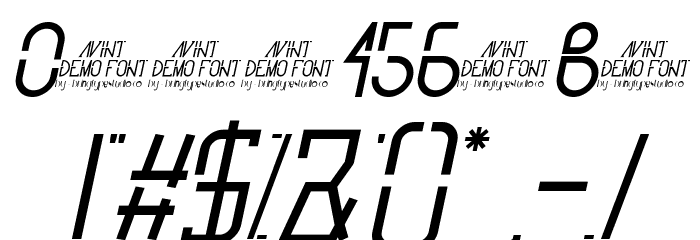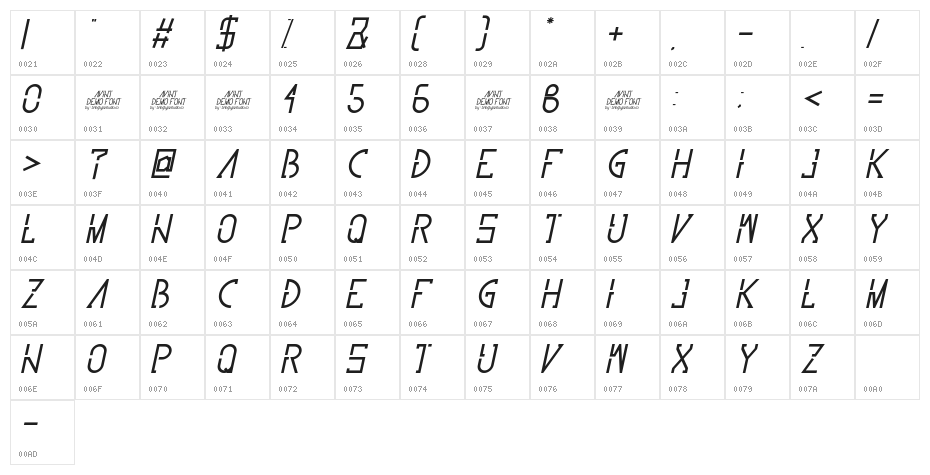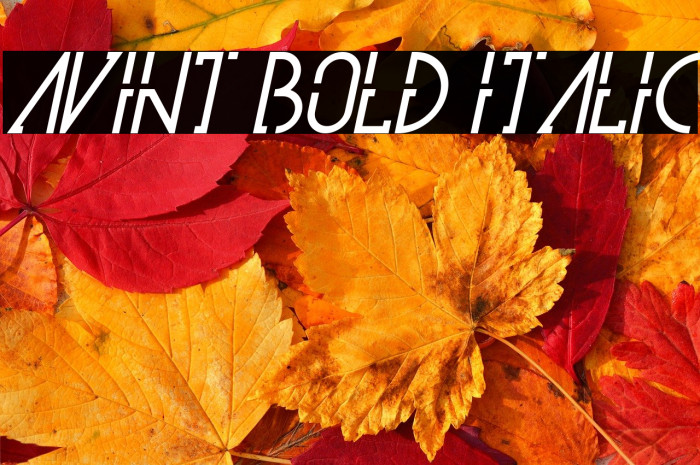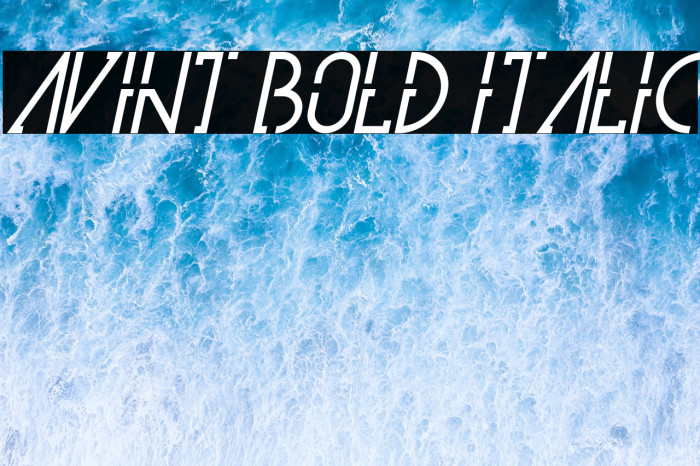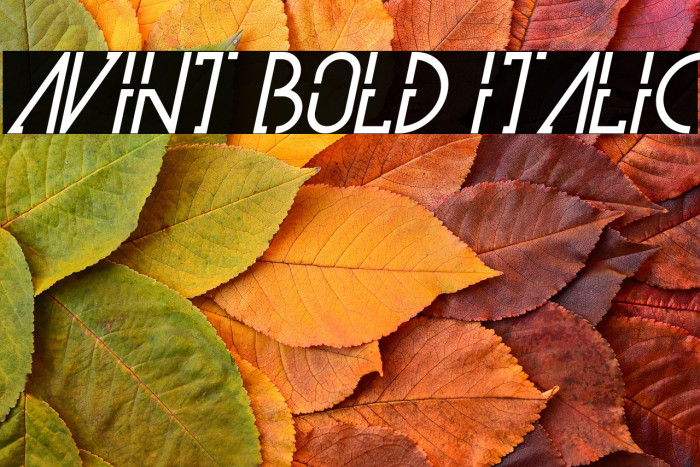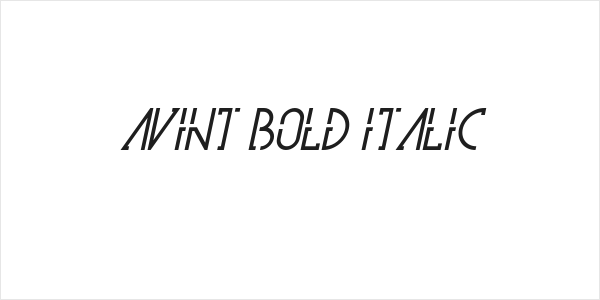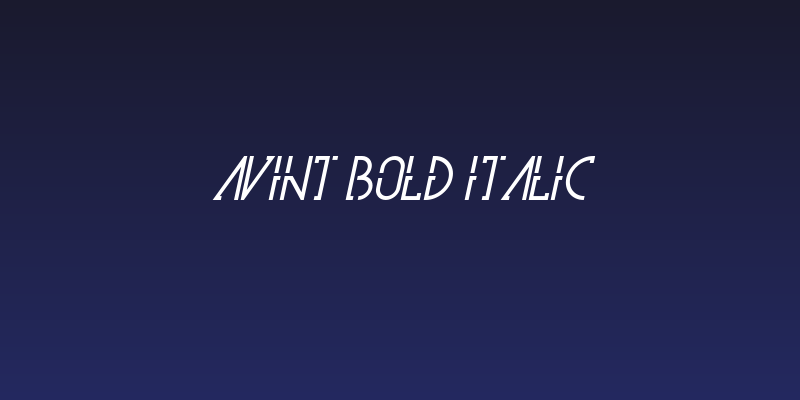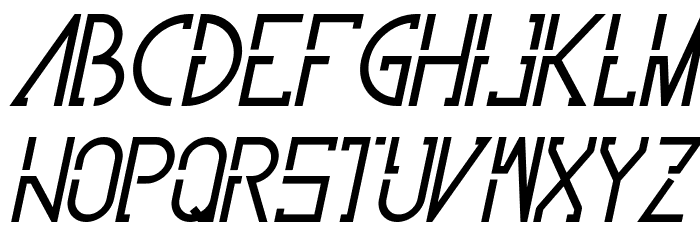
Avint Bold Italic Font
Avint Bold Italic Description
This font features a bold and italicized style with a modern and futuristic aesthetic. The characters are sharply angled and elongated, giving a sense of motion and speed. The uppercase letters are particularly distinctive, with unique geometric cuts and lines that create a dynamic appearance. The lowercase letters maintain the same angular style, ensuring consistency throughout the typeface. Numbers and special characters are designed to match the overall theme, with a sleek and contemporary look. The font's design is both eye-catching and versatile, making it suitable for a variety of creative projects.
| Proposed Projects | Ideal for branding, advertising, posters, and digital media that require a modern and dynamic look. |